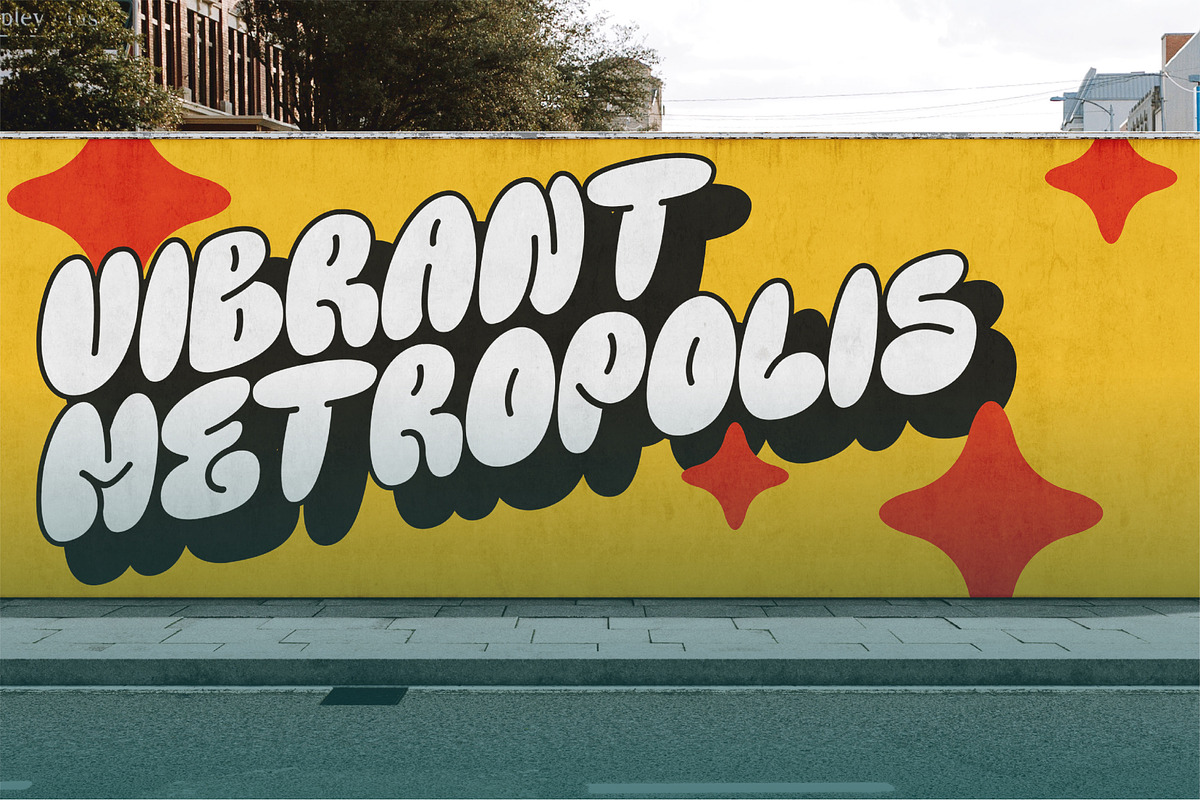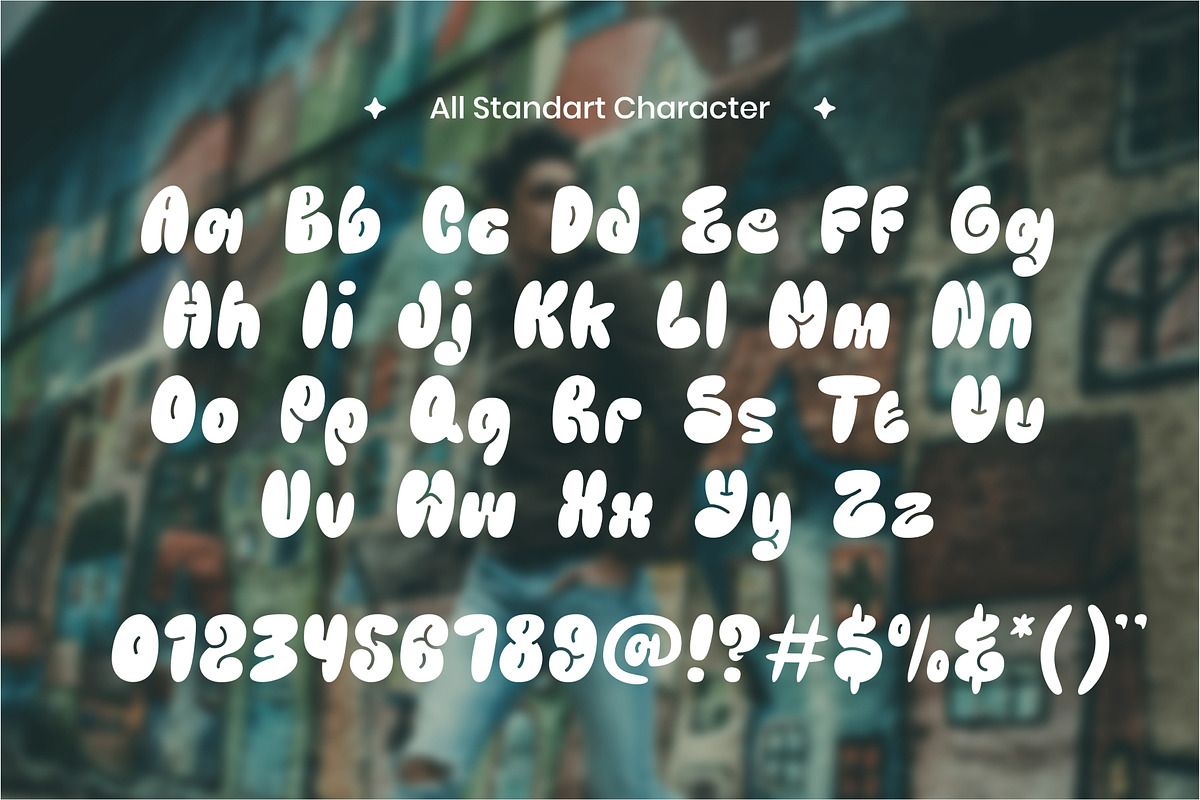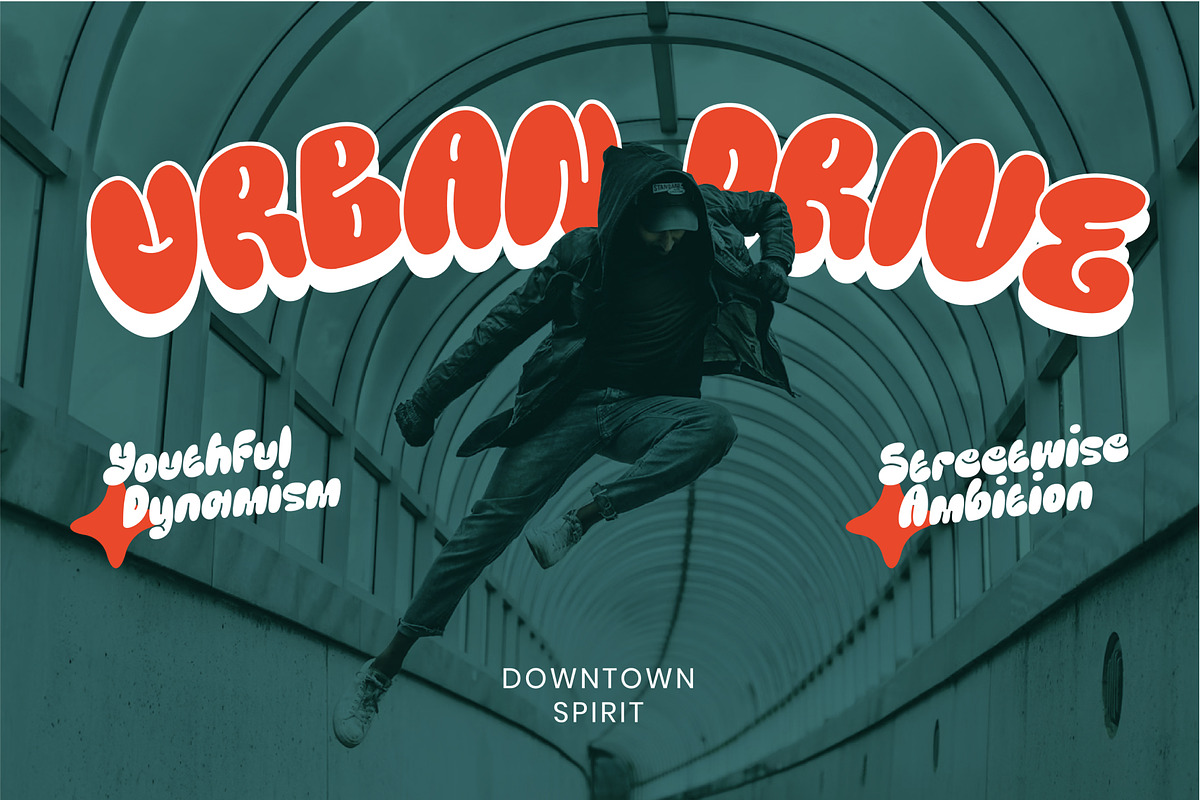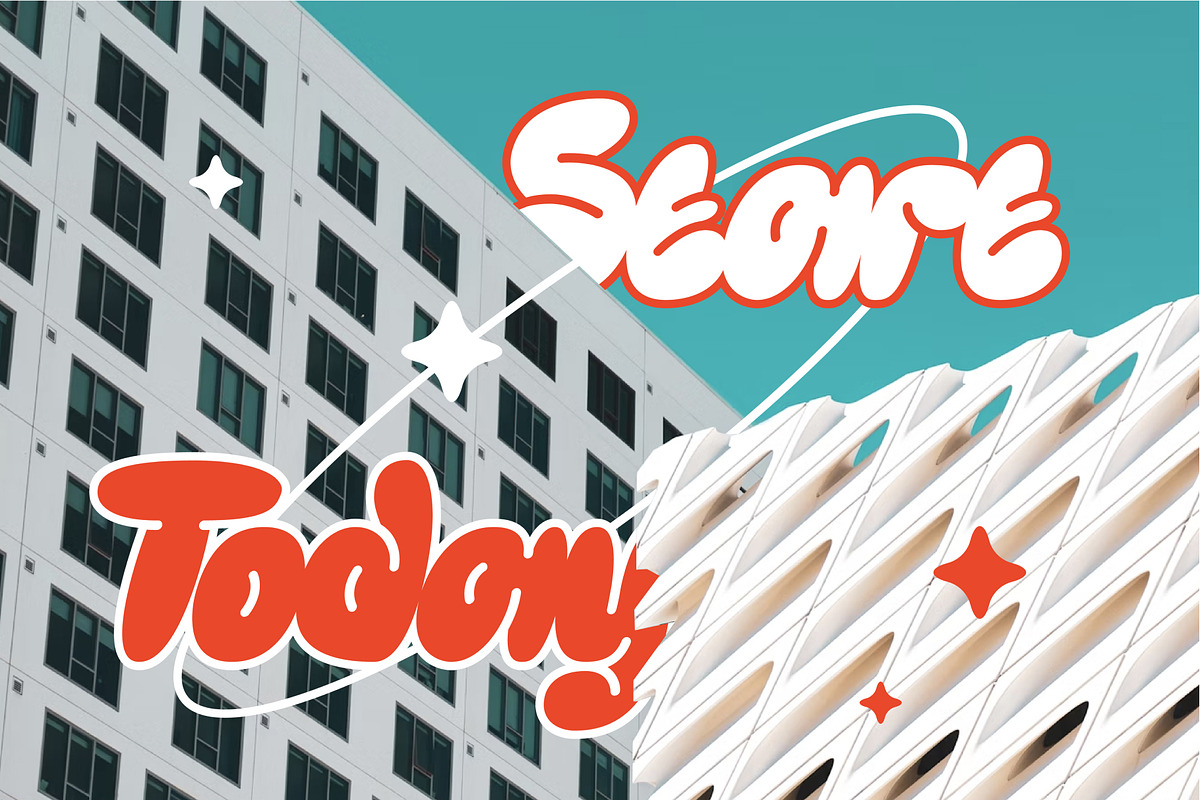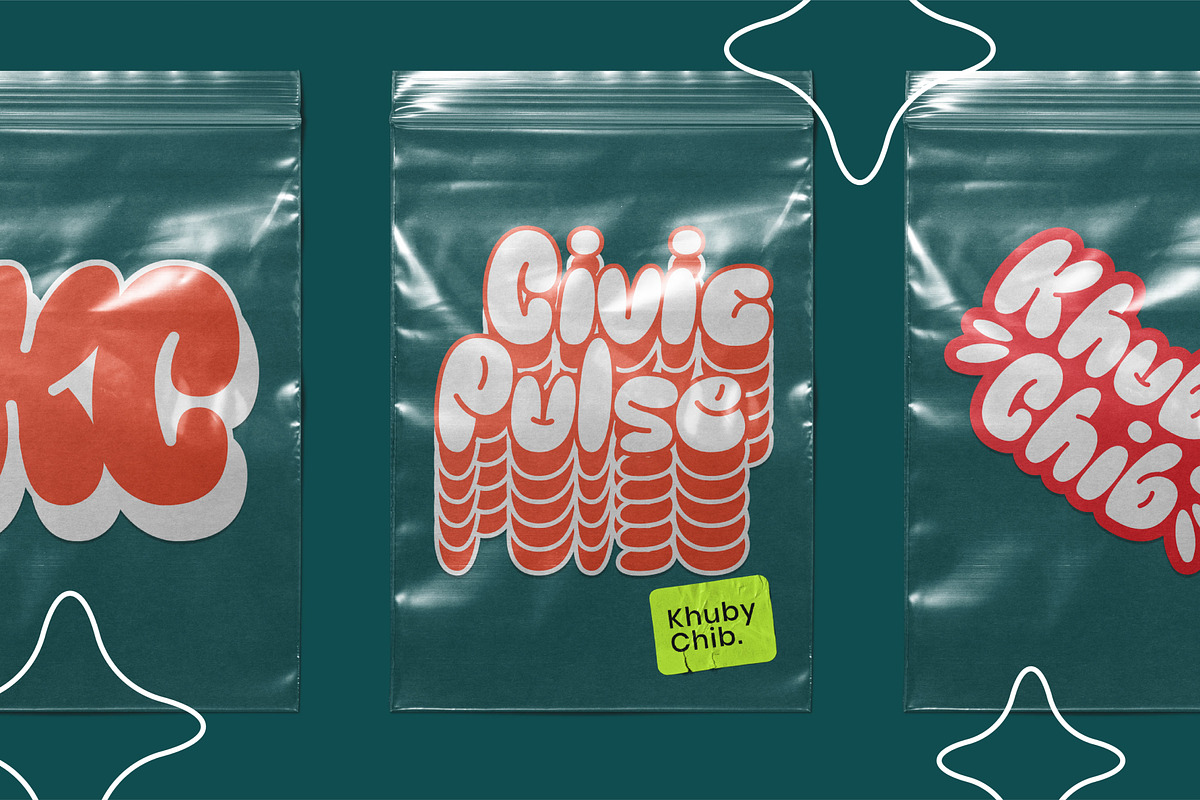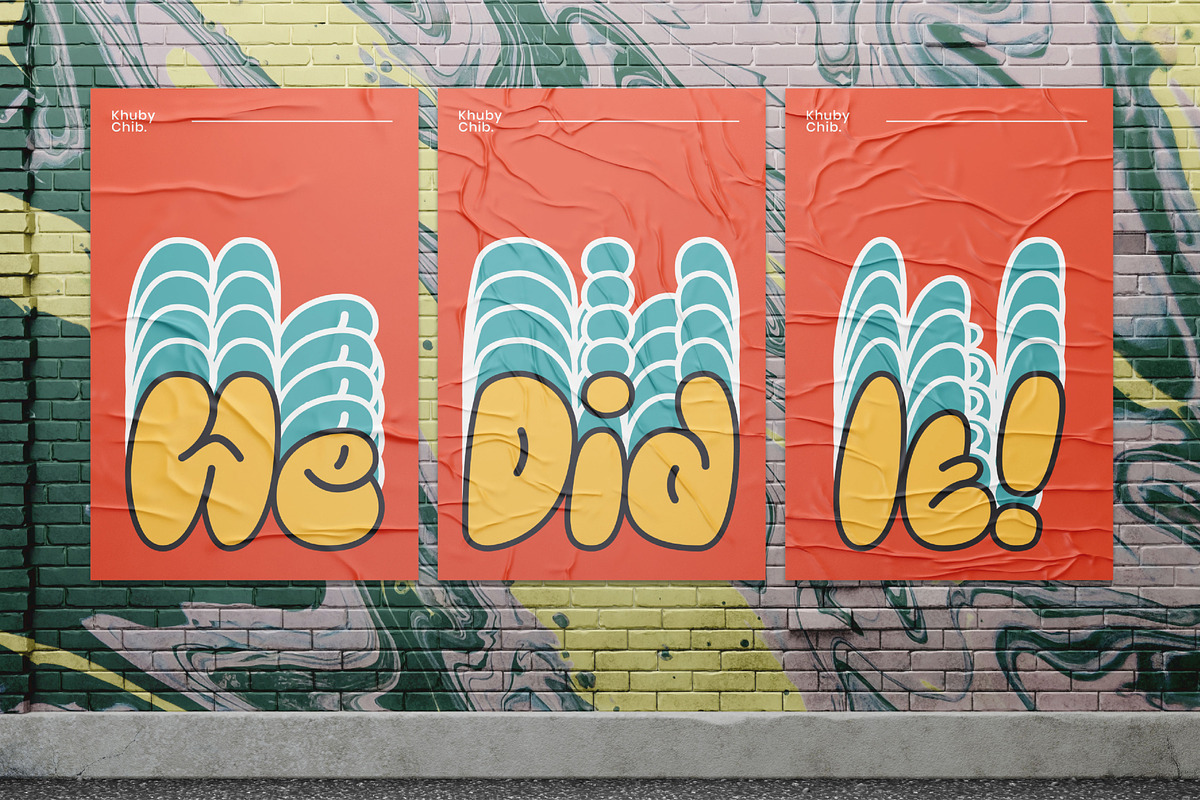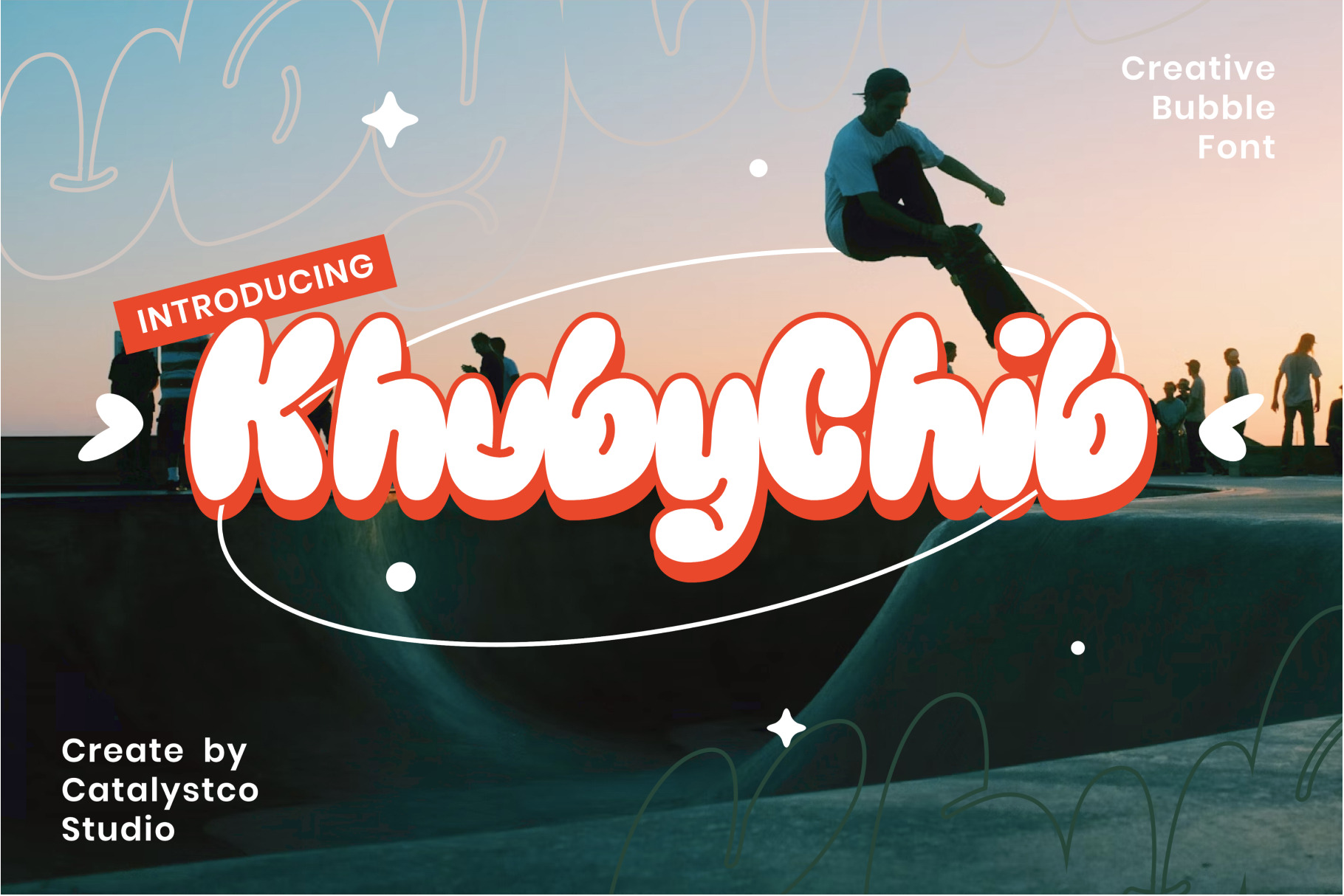
Khuby Chib Creative Bubble Font
Khuby Chib Creative Bubble Font typeface excellent used for the manufacture quote text, logotype, header magazine, and many more.